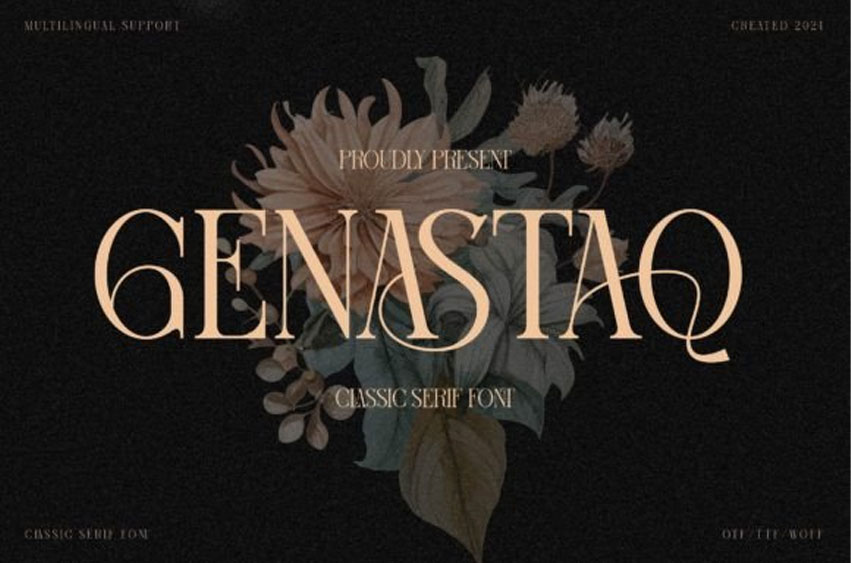
Genastaq Font
Genastaq Font is a classic serif font with elegant, traditional letterforms.
It has sharp, clean lines and a timeless feel, making it perfect for formal documents and stylish designs.